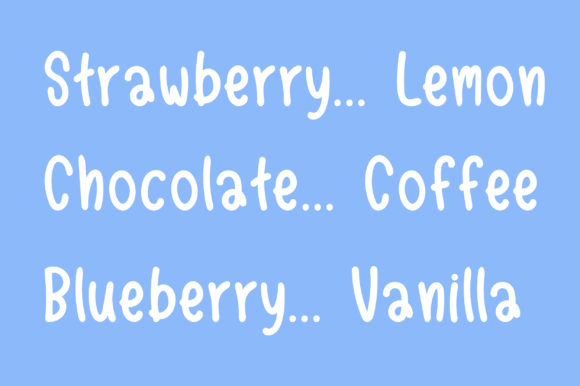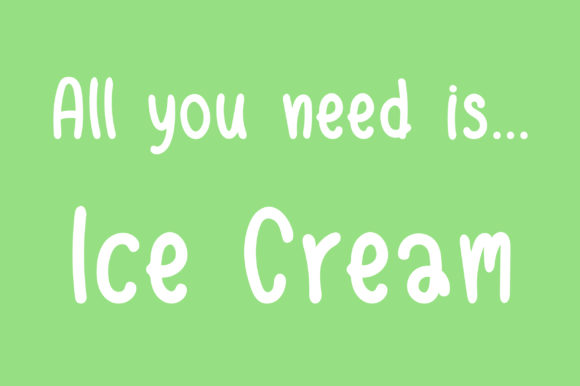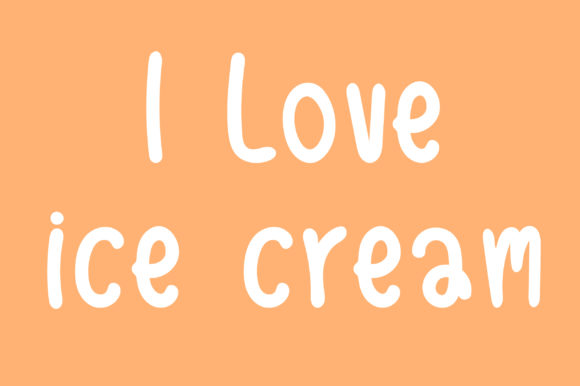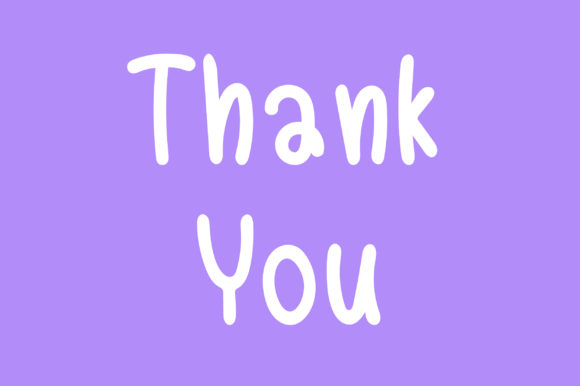
Ice Cream Font
About Ice Cream Font
Ice Cream is cute and sweet handwritten font. Fall in love with its incredibly versatile style and use it to create spectacular designs!